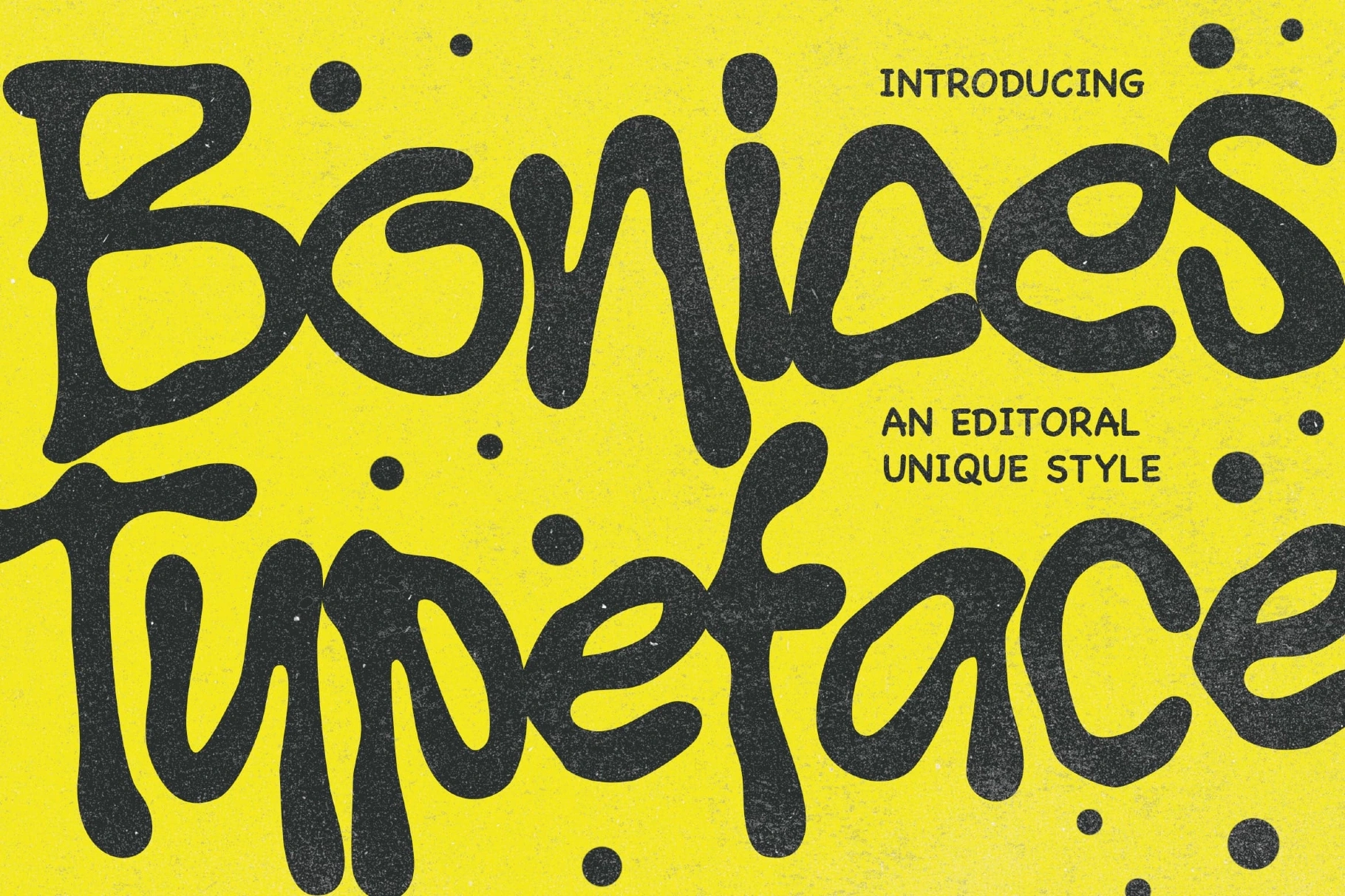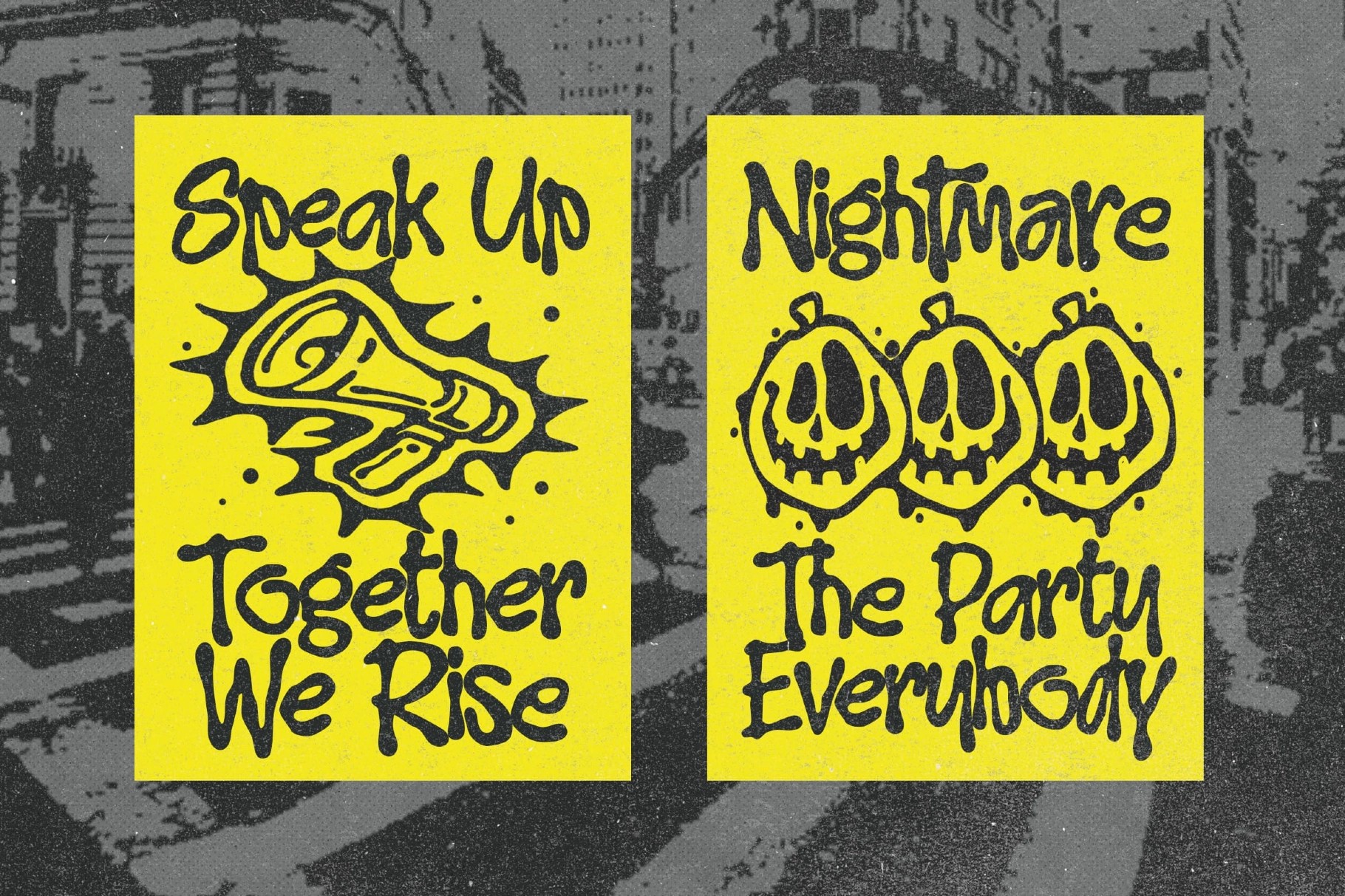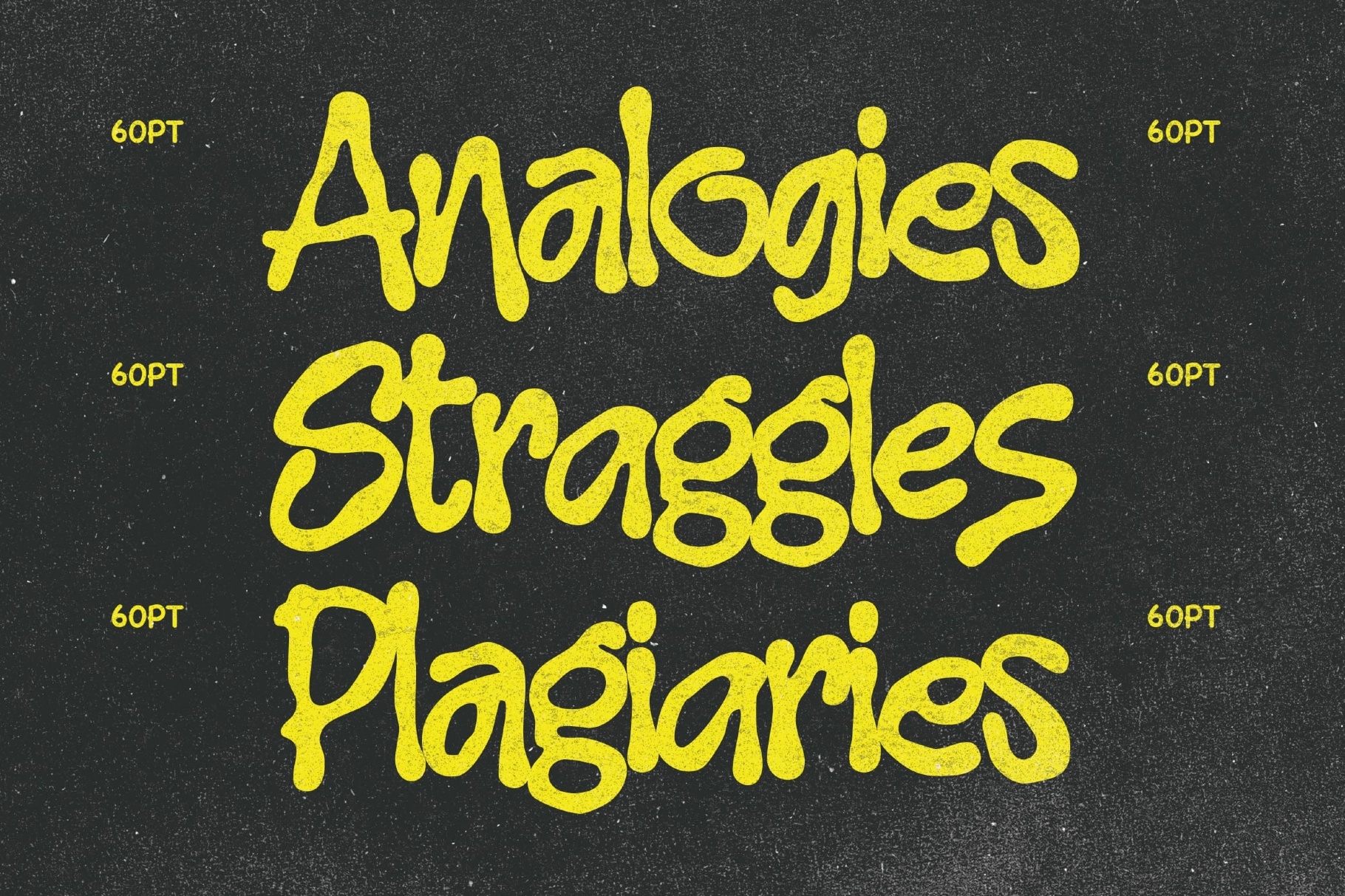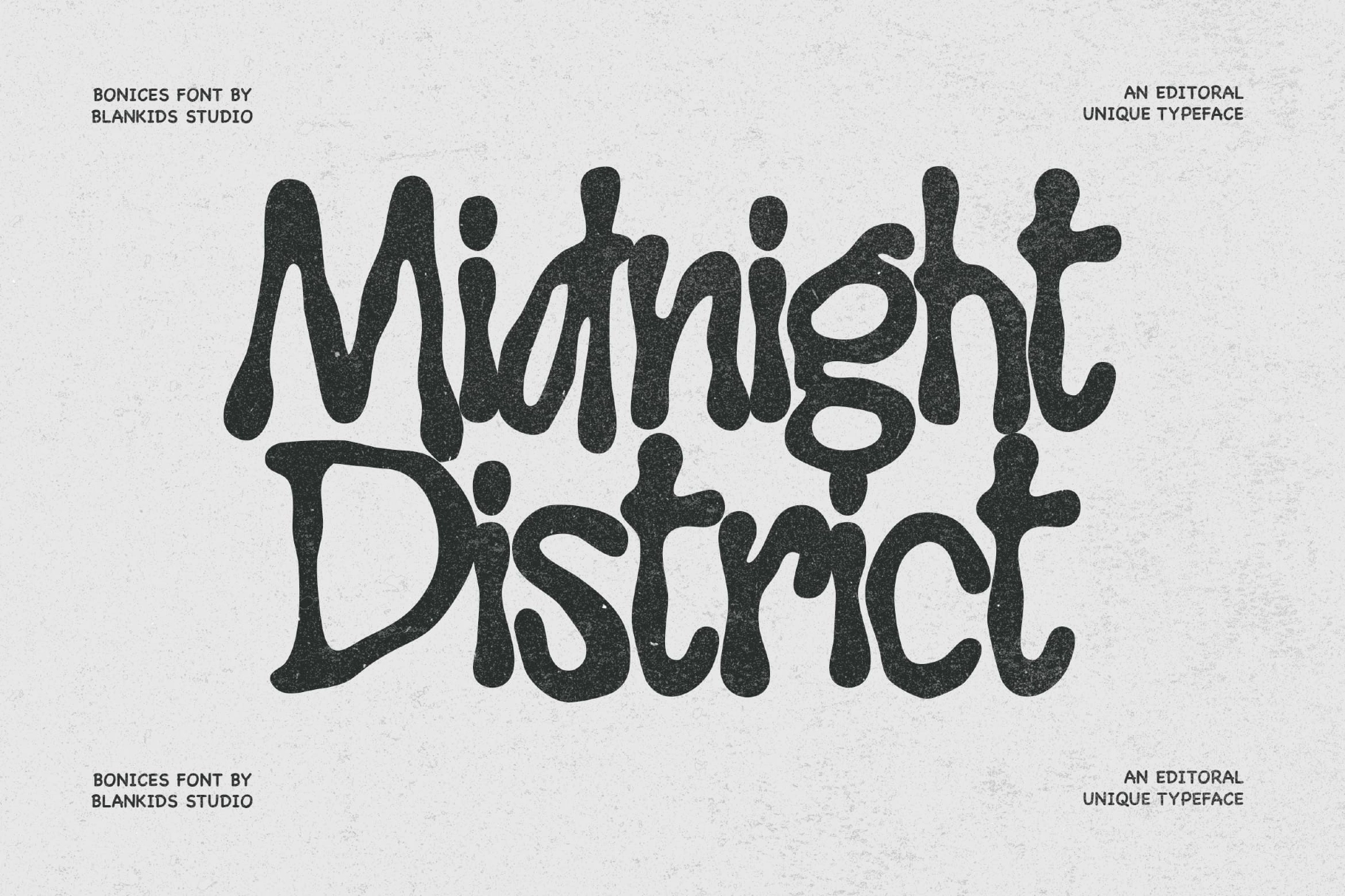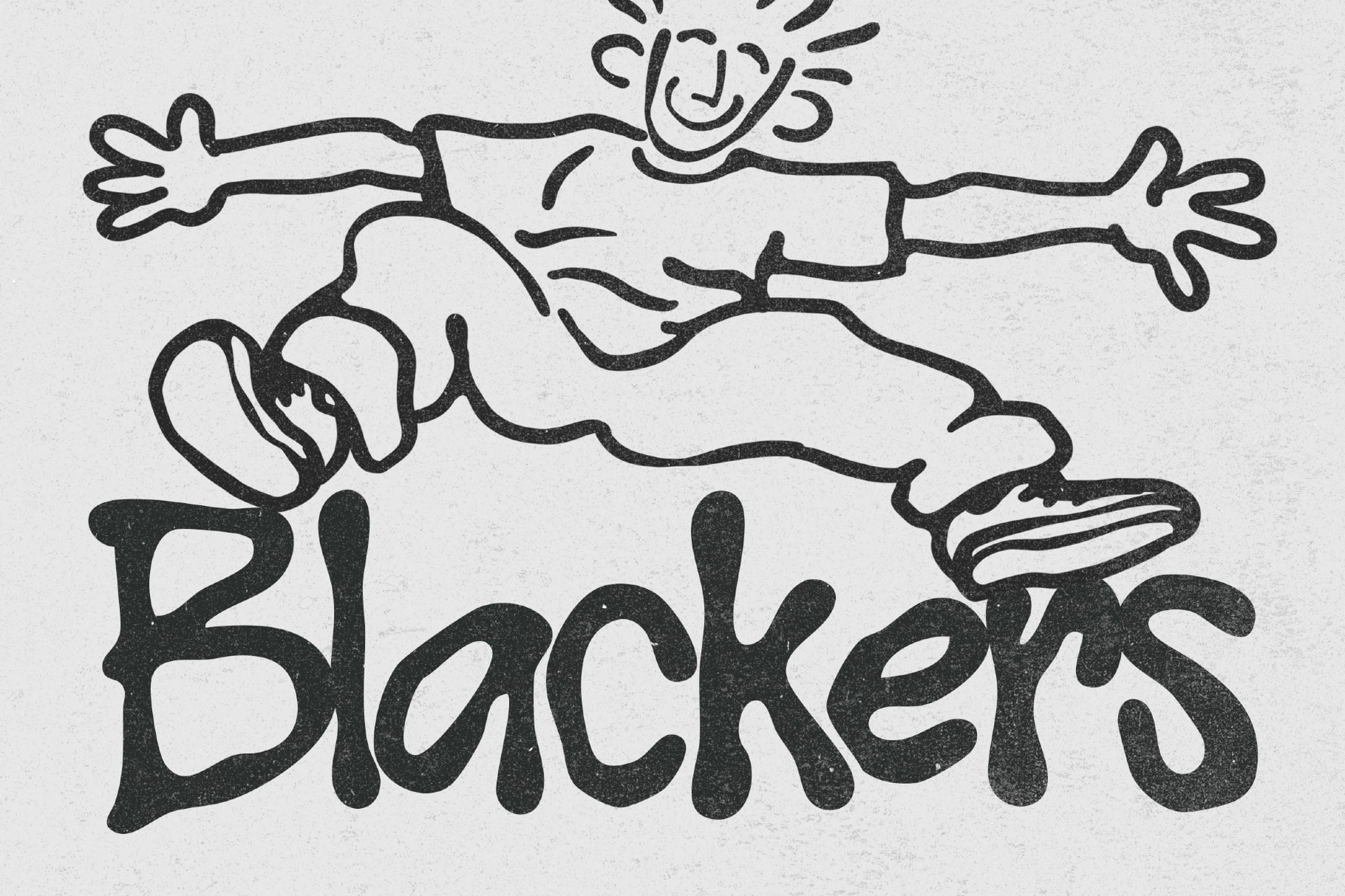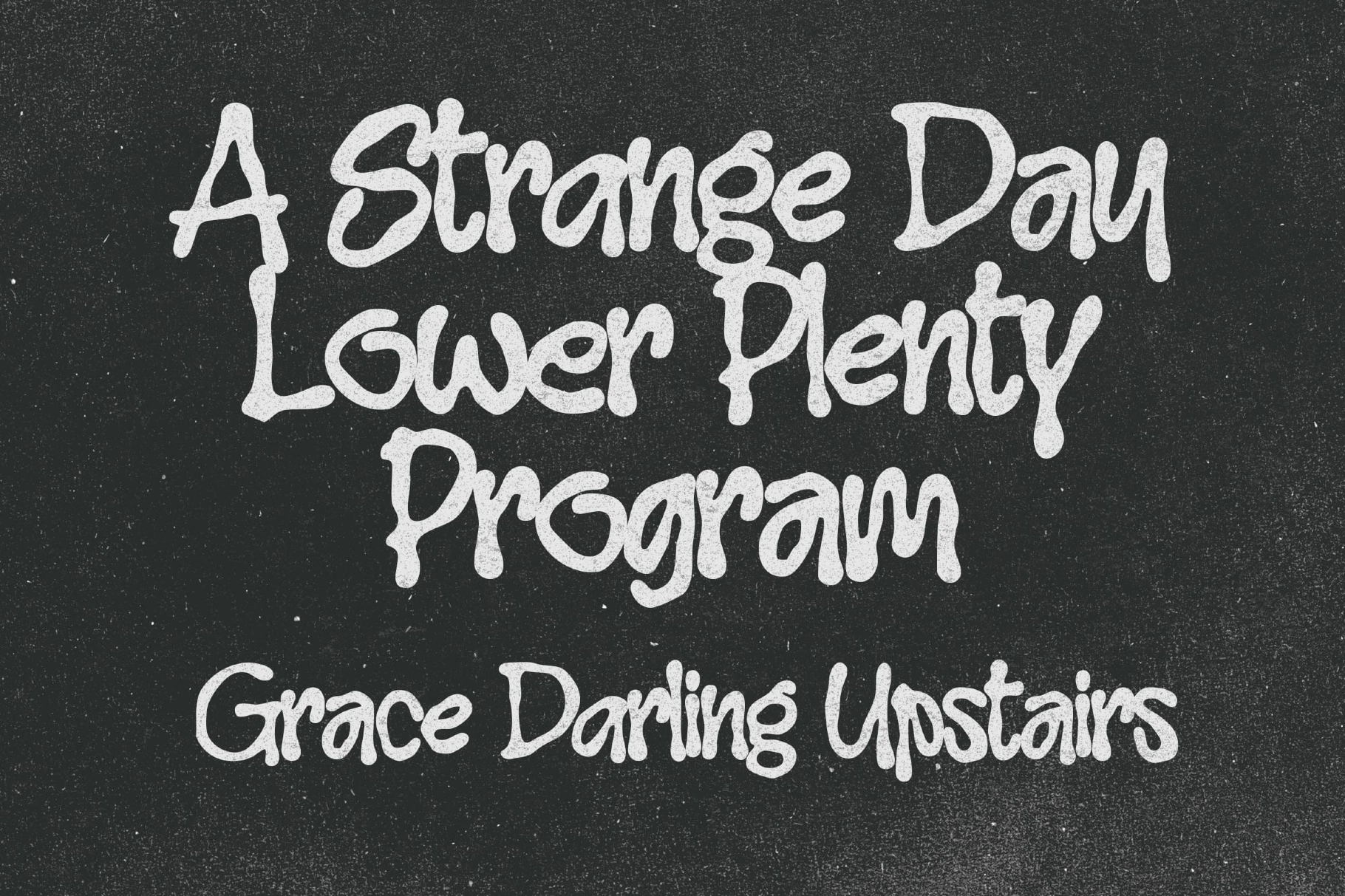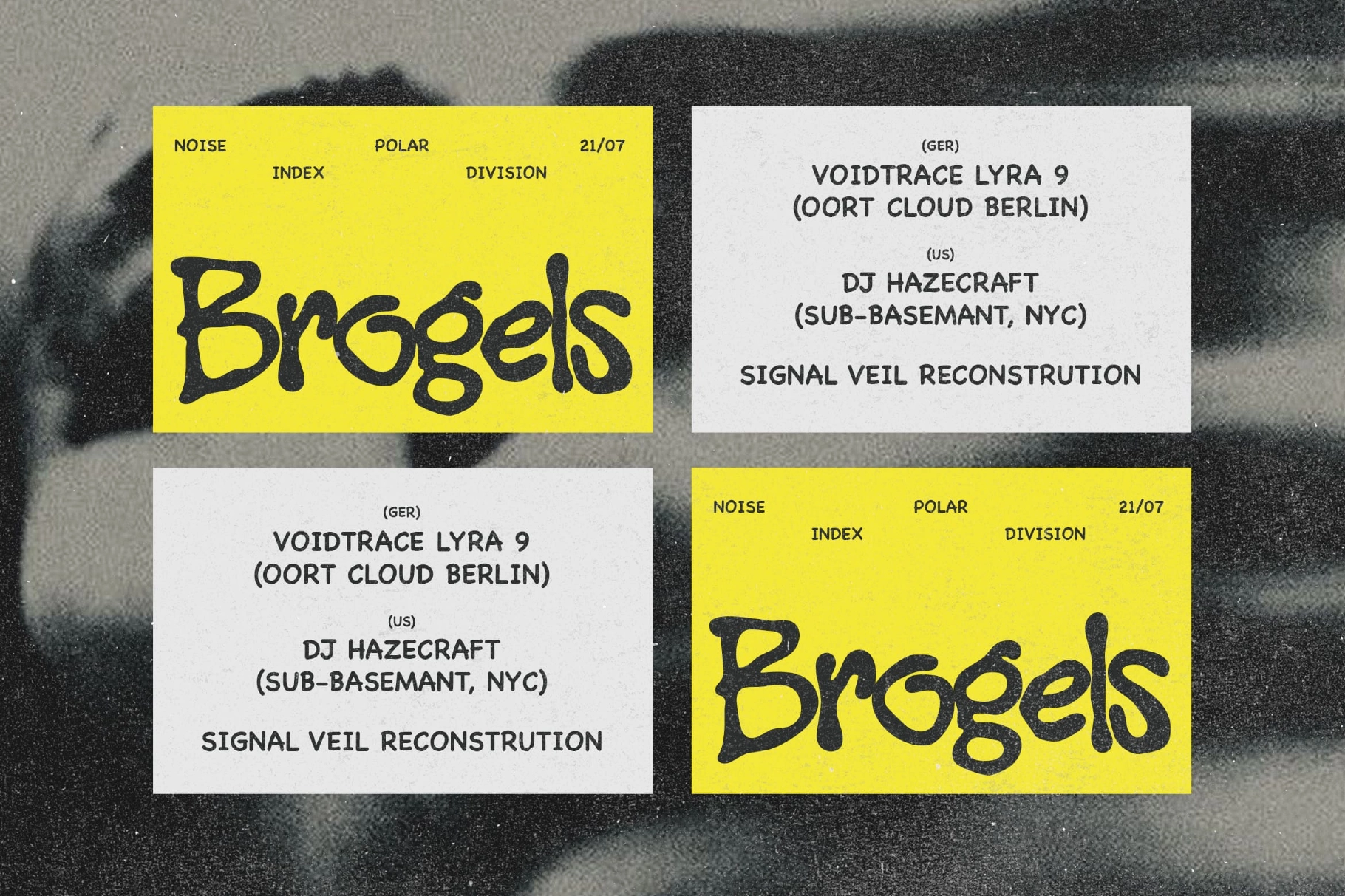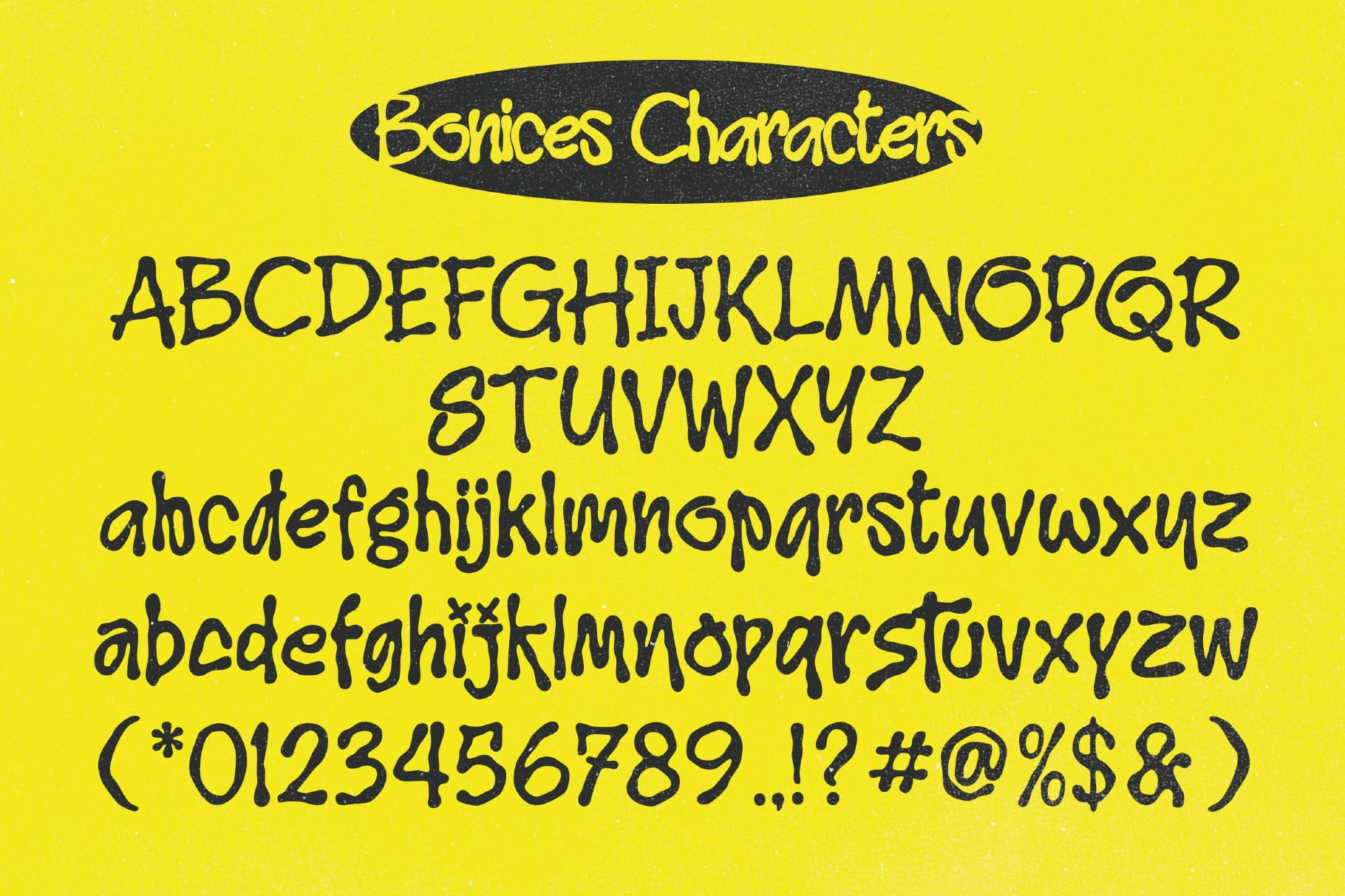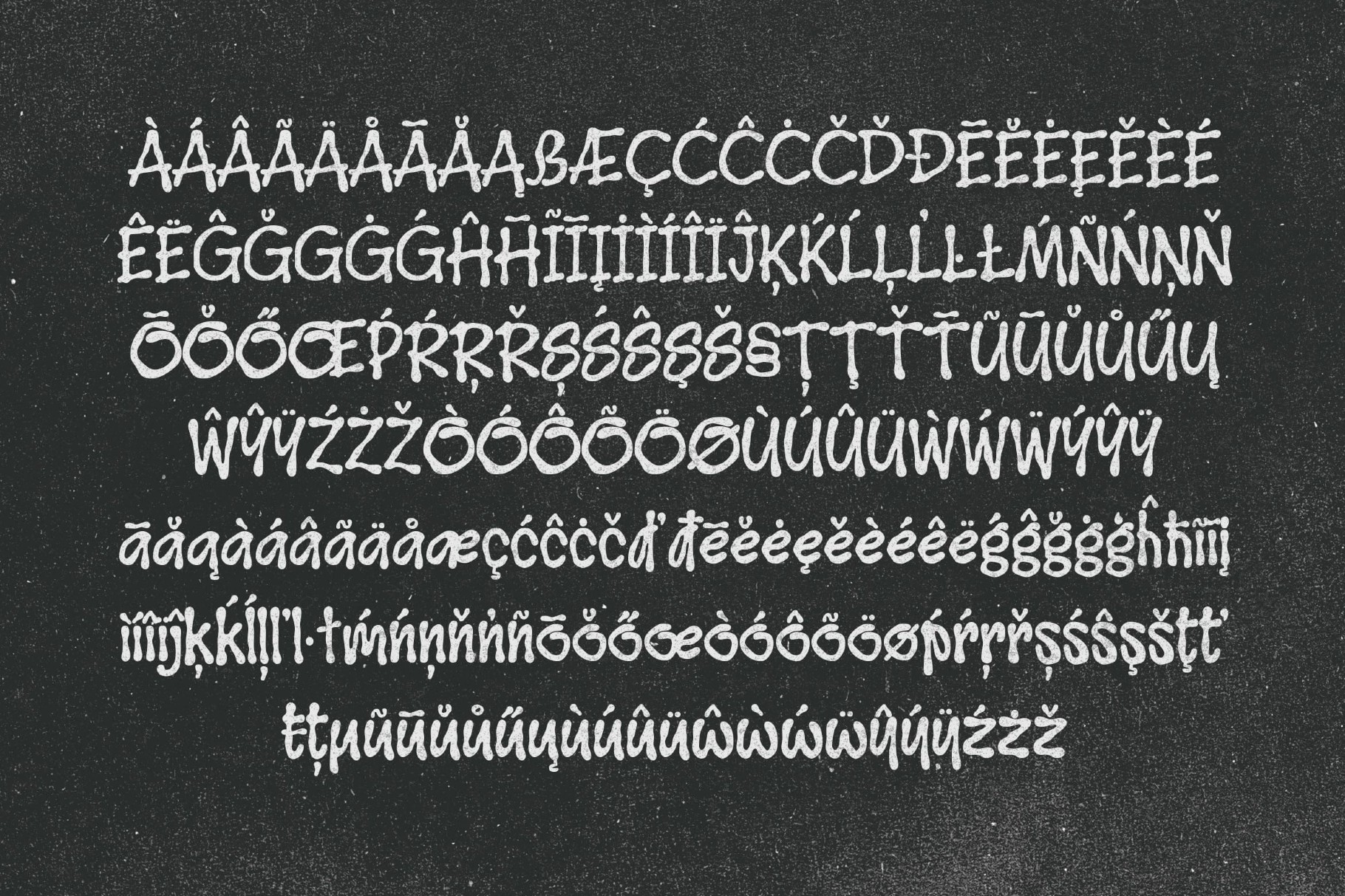
Bonices - Hand Drawn Display Font
Bonices
Bonices drips down the page like marker ink still wet from a zine cut-and-paste session — thick, uneven strokes that bulge and taper with the same loose control as a hand-drawn poster stencil. This hand-drawn display font keeps that raw, underground energy across the whole set, and every lowercase letter carries a full alternate form, so a single word can shift its texture letter by letter instead of repeating the same shape twice.
Bonices works best set big, where the dripping strokes and uneven weight can hold a headline on their own. Use it for music posters, album covers, magazine headlines, streetwear branding, zine layouts, packaging, sticker packs, and social media graphics.
- Uppercase & lowercase;
- Numerals, punctuation & symbols;
- Alternate lowercase letterforms;